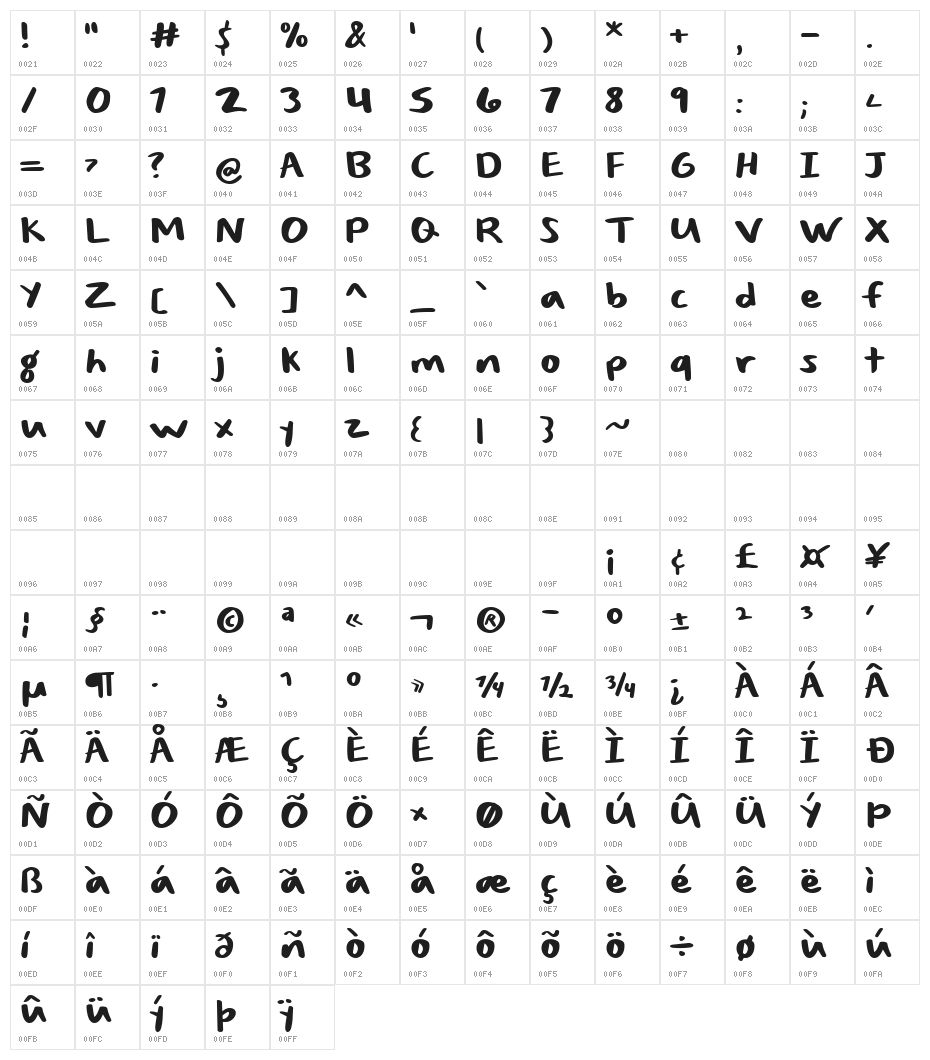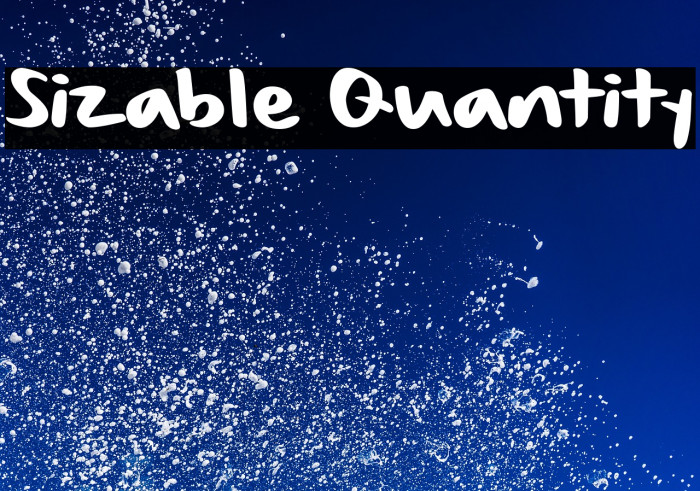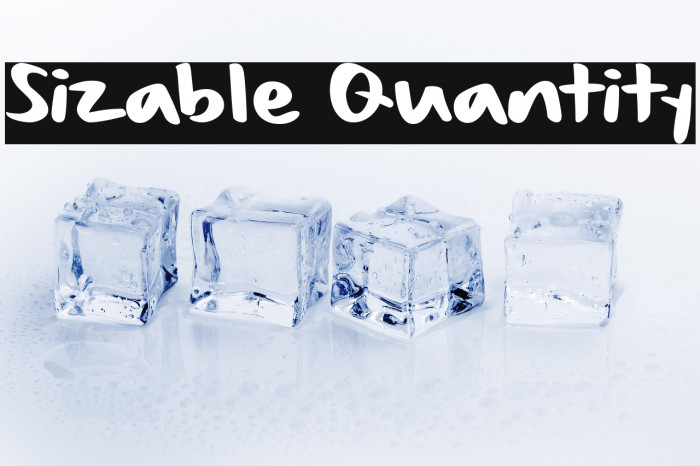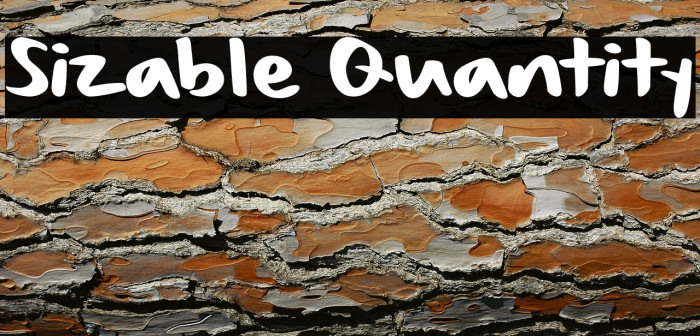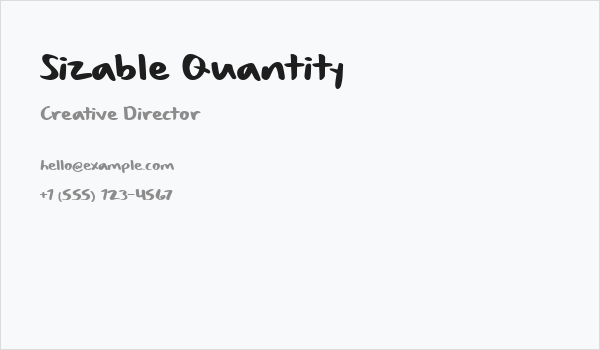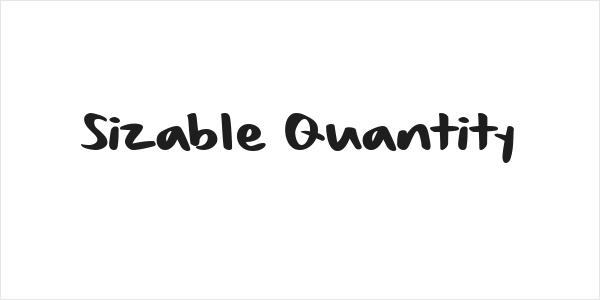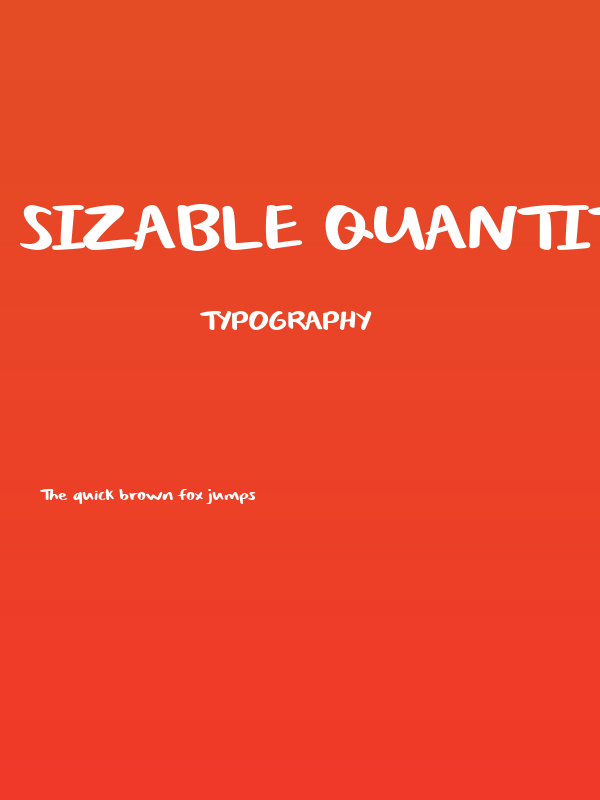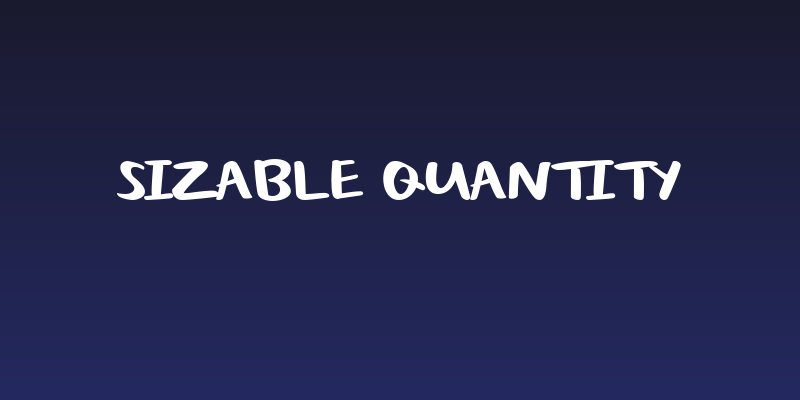
Sizable Quantity Font
Sizable Quantity Description
This font features a playful and bold handwritten style, characterized by its thick, rounded strokes and casual appearance. The letters are slightly slanted, giving a dynamic and energetic feel. The uppercase and lowercase letters maintain a consistent flow, with rounded edges that enhance its friendly and approachable look. The numerals and special characters are designed to match the overall style, ensuring uniformity across all characters. This font is ideal for projects that require a personal touch or a fun, informal vibe.
| Overall Style | Playful, Informal |
| Proposed Projects | Great for children's books, greeting cards, playful branding, and social media graphics. |